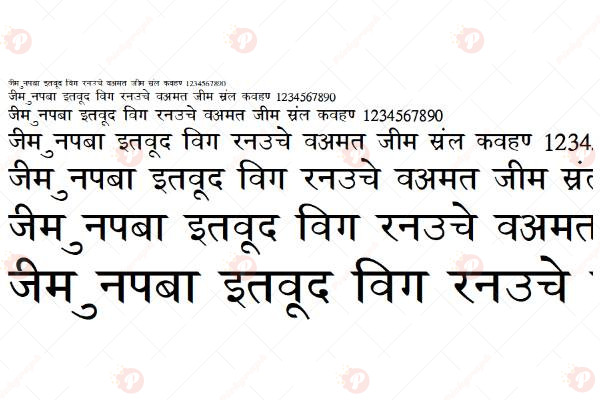
The New Delhi Bold Font is a powerful and modern Devanagari typeface designed to make your text stand out. With its bold weight and clear structure, it is perfect for posters, banners, headlines, book covers, invitations, branding, and social media graphics.
This font is ideal for projects in Hindi, Sanskrit, Marathi, and Nepali, combining readability with a strong visual impact. Its contemporary design makes it versatile for both traditional and modern creative work.
Supported Script: Devanagari (Hindi / Sanskrit / Marathi / Nepali)
Font Style: Bold / Strong / Traditional Typeface
| Optimum Size | Large (Display / Poster) |